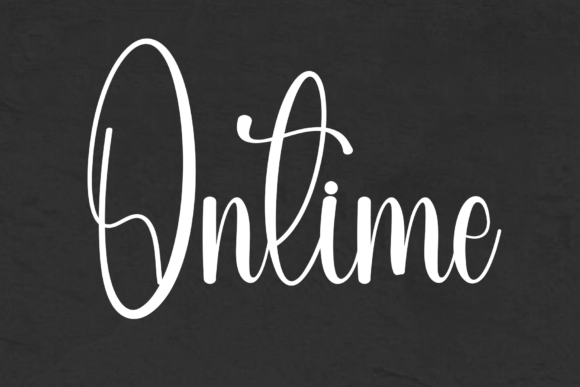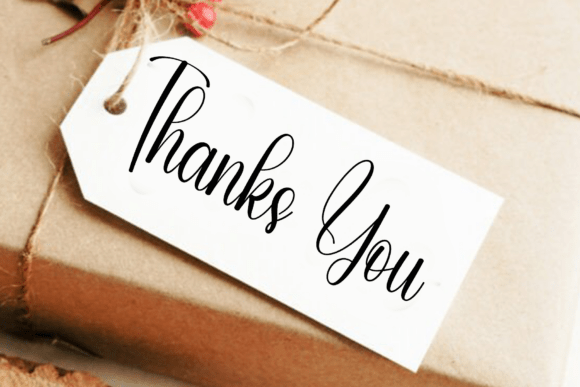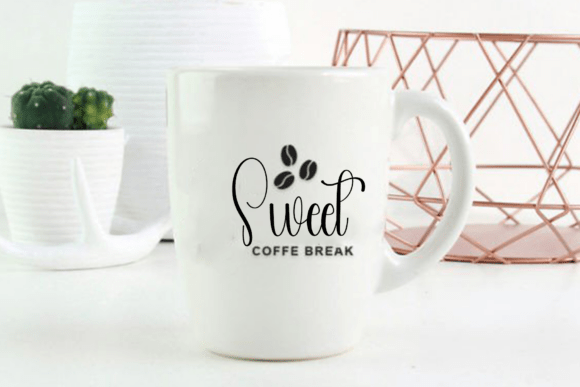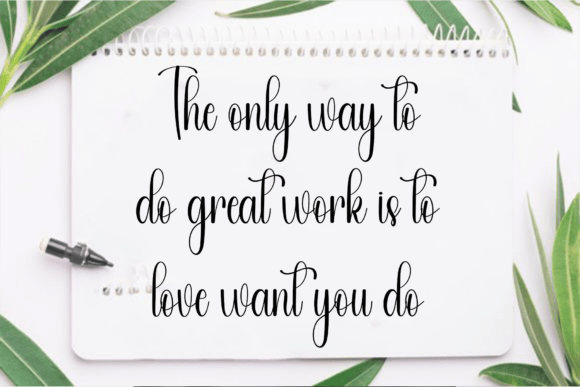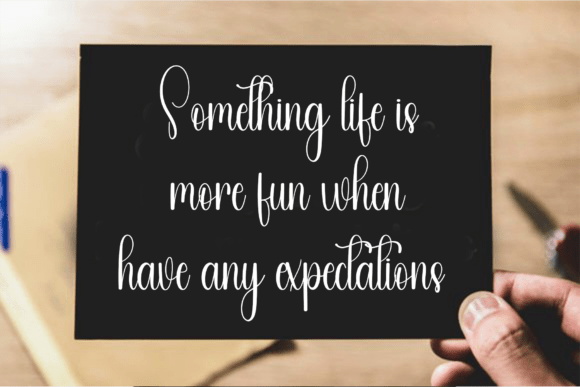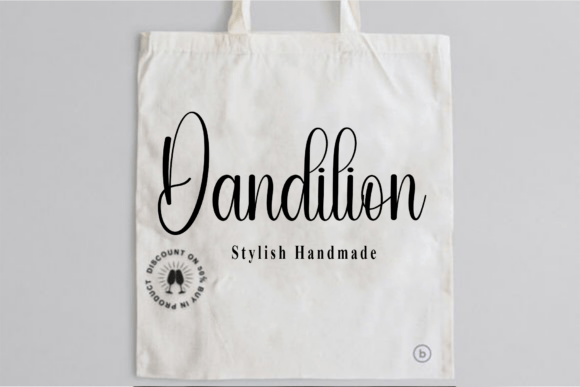
Introduction to Chicken Homemade Font
As you sit at your desk, surrounded by scraps of paper and half-finished projects, you finally get the idea for the perfect holiday card design. The words start flowing, but the font is what really brings it to life. That’s where the Chicken Homemade Font comes in – a festive and merry typeface that captures the spirit of the holiday season.
| 📌 Product Name | Chicken Homemade Font |
| 👤 Author | PiPi Creative |
With its decorative elements and whimsical flair, this font adds a touch of enchantment to your designs, making it perfect for greeting cards, gift tags, and holiday-themed projects. Whether you’re a seasoned designer or just starting out, the Chicken Homemade Font is a valuable addition to your design resource library. Its high quality and transparent background make it easy to use, and with a free download available, you can start creating with it today.
Key Features of Chicken Homemade Font
- High-quality design resource ideal for creative projects, offering a unique and stylish look.
- Includes a range of characters, including uppercase and lowercase letters, numbers, and special symbols.
- Designed with a modern and playful feel, making it perfect for use in digital and print media.
Honest Review: Chicken Homemade Font
- ✨ High-quality glyphs: The font has a unique and quirky feel to it, which makes it perfect for creative projects that require a touch of personality.
- ✨ Transparent background: This feature allows for easy layering and blending with other design elements, giving me more flexibility in my designs.
Any limitations:
- ⚠️ Limited font sizes: The font seems to be optimized for smaller text sizes, and it can become a bit fuzzy when enlarged.
- ⚠️ Limited language support: The font only supports English characters, which might be a limitation for designers working on multilingual projects.
Overall, I’m impressed with the Chicken Homemade Font. It’s a great addition to any designer’s toolkit, and I’m excited to see how it will be used in future creative projects. If you’re looking for a unique and high-quality font, I’d definitely recommend giving this one a try.
Chicken Homemade Font
The Chicken Homemade Font is a free design resource perfect for creative projects that require a unique and high-quality font. This font features a transparent background, making it ideal for use on various backgrounds.
Tips for Getting the Most Out of Chicken Homemade Font
To get the most out of the Chicken Homemade Font, use it in combination with other design elements, such as graphics and images, to create a visually appealing design. Experiment with different font sizes, colors, and styles to find the perfect look for your project.
Common Use Cases for Chicken Homemade Font
The Chicken Homemade Font is ideal for use in various design projects, including logos, business cards, brochures, and social media graphics. It’s also a great choice for use in presentations, documents, and websites that require a unique and high-quality font.